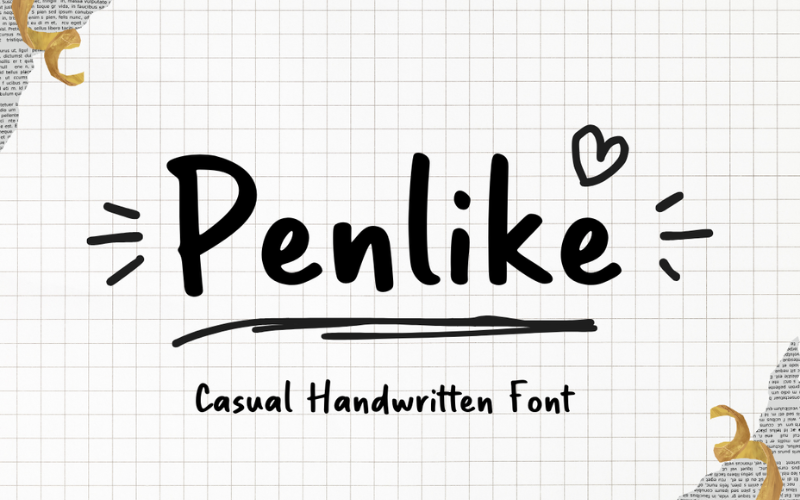
Penlike - Handwritten Font Font
About Penlike - Handwritten Font
Penlike is a casual handwritten font with a natural, friendly feel, perfect for adding a personal touch to your designs. Its smooth and easy-going style is ideal for invitations, social media graphics, and branding that needs a warm, approachable vibe. Bring your projects to life with the charm of Penlike.